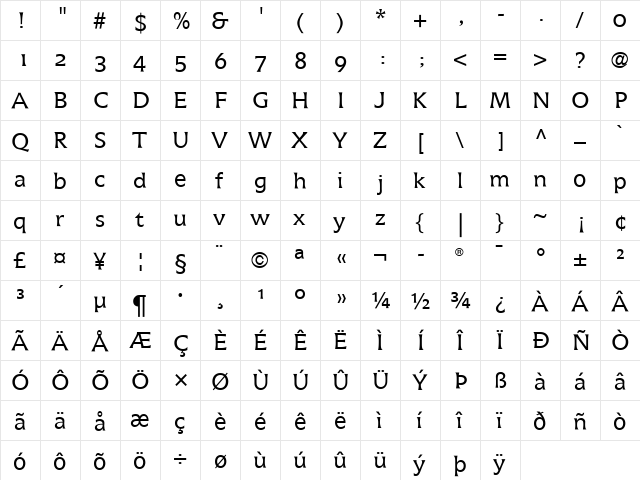
Icone LT RegularOsF Regular Font Preview
Icone LT RegularOsF Regular
Icone LT RegularOsF Regular Font Details
Design Context for Icone LT RegularOsF Typeface
Icone LT RegularOsF offers clean, dependable letterforms without strong stylistic allegiance, making it a practical choice for designers who need flexibility. The delicate stroke weight brings airiness and refinement to layouts.